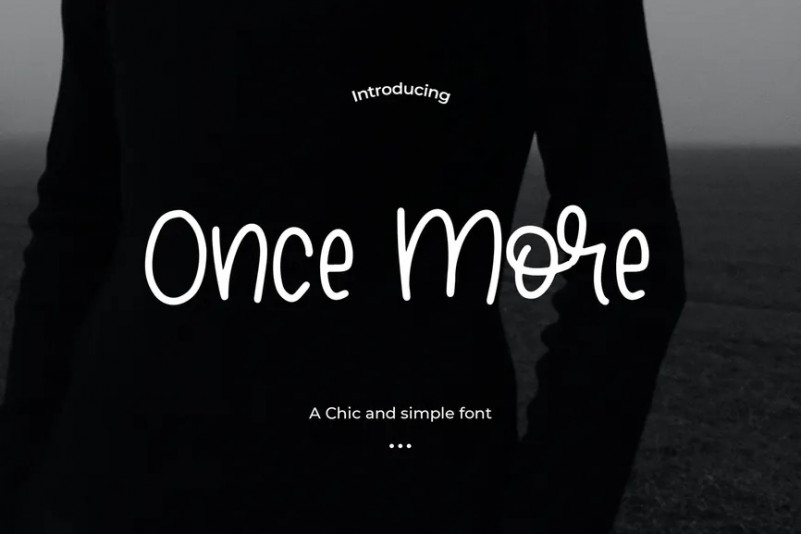
Once More Font
Once more – This font that looks absolutely created by hand. This handwritten font is ideal for branding and decorate your any project.
Every single letter has been creative carefully and Perfectly Playful new font pair. This font is a perfect for making your set of invitations, Brand, blog posts, DIY projects, greeting cards, labels, quotes, posters, wall art, branding, packaging, websites, photo & photography overlays, signs, window art, scrapbooking, tags and so much more!